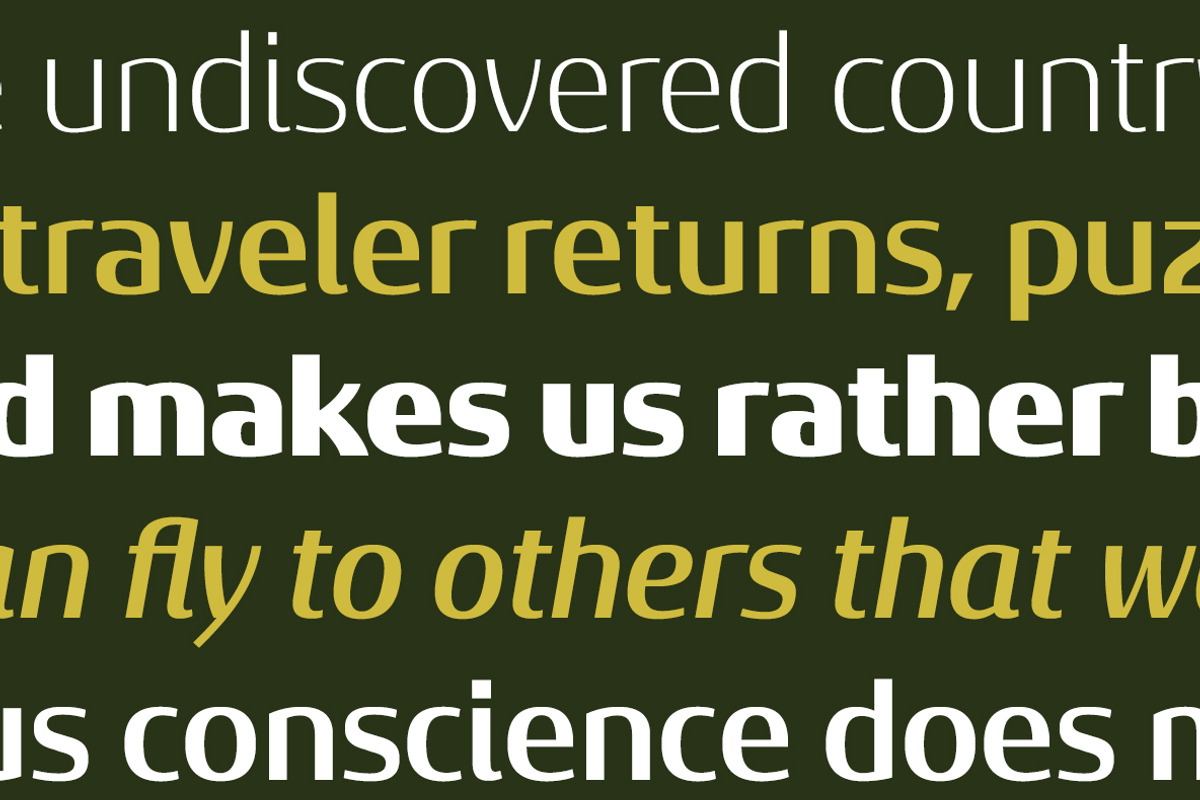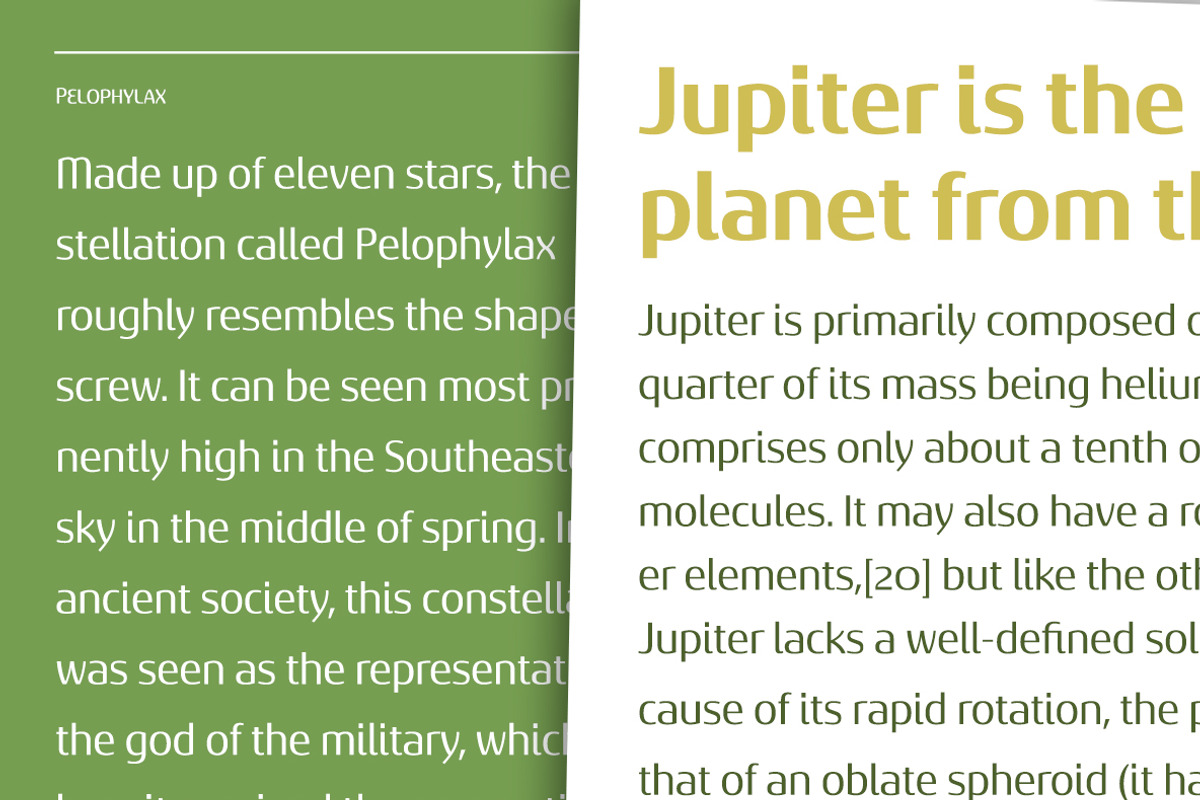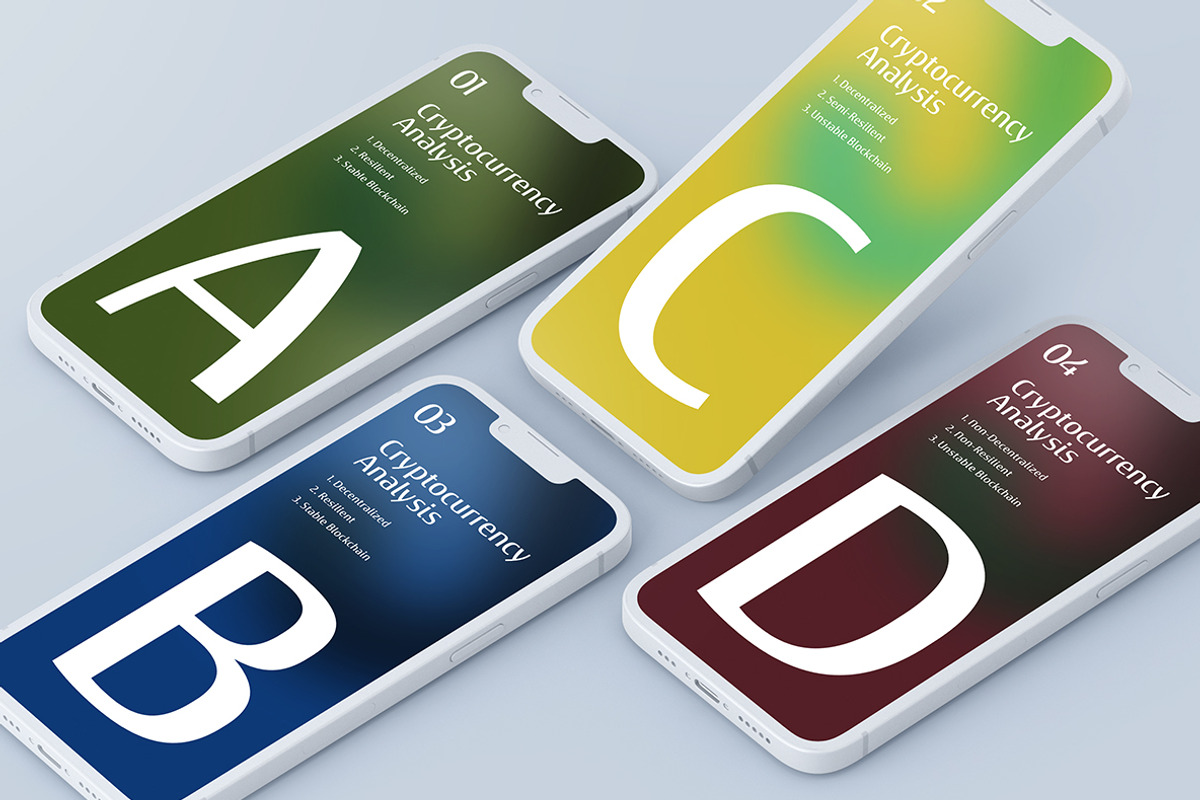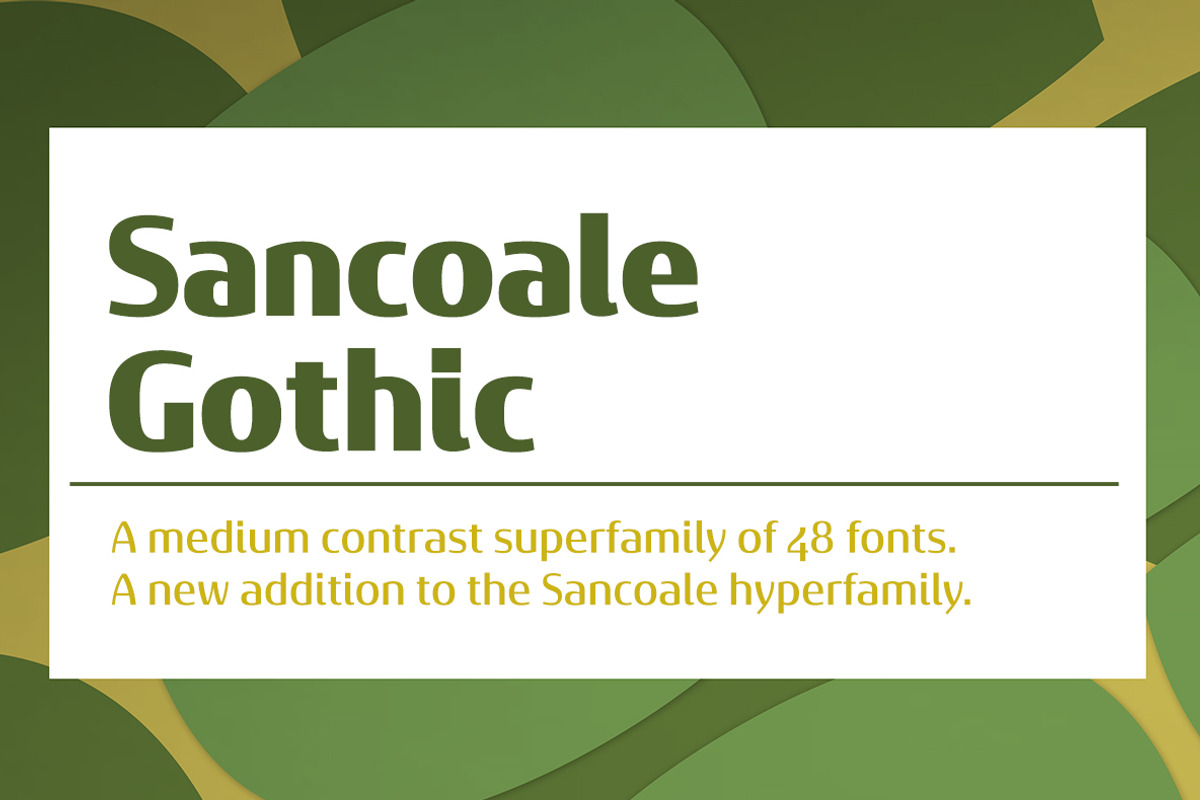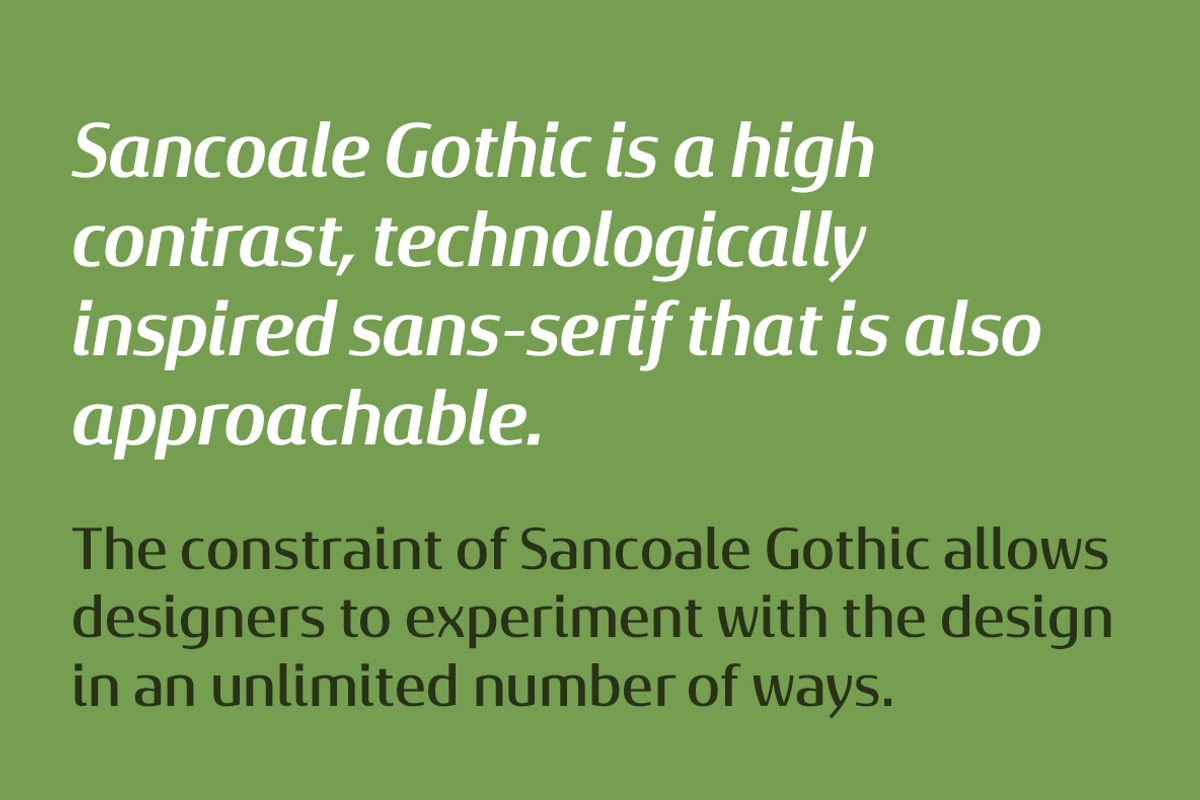
Sancoale Gothic
In comparison to the powerful and commanding original, Sancoale Gothic is a more sober version of Sancoale. The medium contrast between thick and thin strokes makes for a typeface that stands out with striking clarity in longer texts, yet is very readable. This new addition to the Sancoale family is a perfect alternative if you want to use a different style than the original family. Using the utmost care and restraint, the designer strove to avoid overbearing futurism in favor of a typeface with clean lines and clear forms.
Show your customers the world with Sancoale Gothic, a versatile sans with a wide range of styles, from delicate thins to bold, hefty weights that dominate the page and screen with confidence and futuristic flair. A fresh, friendly voice for all kinds of uses, from corporate statements to fashion, Sancoale Gothic is a versatile sans with a wide range of styles, from delicate thins to bold, hefty weights that dominate the page and screen with confidence and futuristic flair.
Sancoale Gothic has a distinct personality, which allows you to create a wide range of projects, including posters and websites. The Sancoale Gothic fonts come in many varieties, so you can go with a light or thick weight, depending on what fits your project best. With their sweeping curves, the heavy fonts are meant for huge headings on posters and websites. The Sancoale Gothic family is made up of 48 distinct styles, with 660 glyphs and supports 70 languages, allowing you to communicate with your customers all over the world.
Small Capitals and other OpenType features abound! The design is sleek with no stems or spurs in the default character set, but OpenType alternates have alternates with stems. OpenType capable applications such as Quark or the Adobe suite can take full advantage of the automatically replacing ligatures and alternates.
The superfamily offers an array of optical sizes, contrasting weights, and contrasting optical sizes to discover the right balance, contrast, and optical size for your design.
Prepare to be blown away by Sancoale Gothic’s smooth curves and captivating allure. Sancoale Gothic is perfect for both a contemporary and forward looking style. Sancoale Gothic is both practical and unique, in a standalone capacity or with the companion Sancoale fonts. Use it to make an impact today.